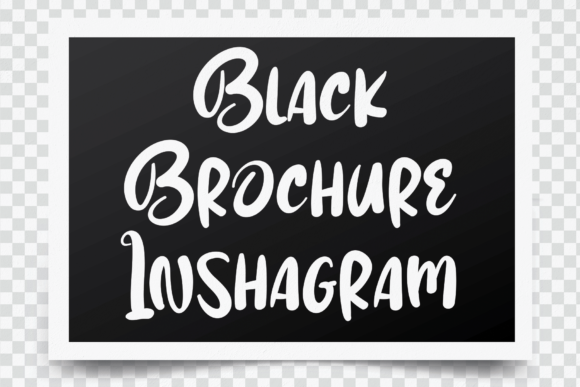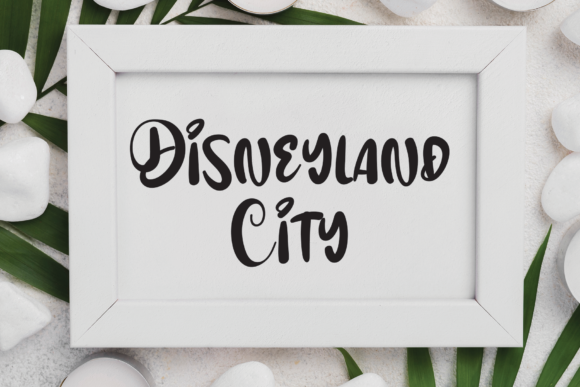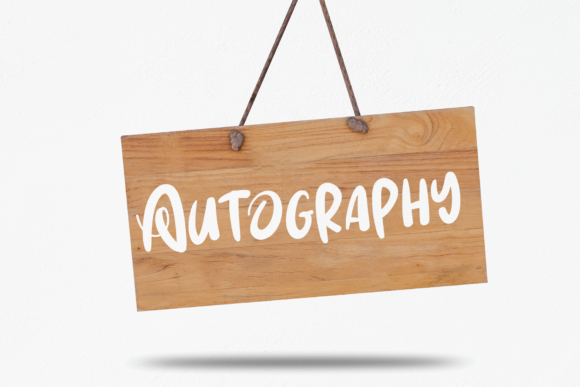
Introducing Hello Font: The Epitome of Elegance and Sophistication
In the realm of typography, few fonts manage to convey the essence of luxury and refinement as effectively as Hello Font. This exquisite script font is designed to add a touch of sophistication to any project, making it a go-to choice for designers and crafters seeking to elevate their creations. With its stylish alternates and ligatures, Hello Font is poised to become your new favorite companion in the world of design.
The Design Philosophy Behind Hello Font
Hello Font is more than just a collection of letters; it’s an experience. Its design is rooted in the principles of classic script typography, yet it boasts a modern flair that sets it apart from more traditional fonts. Each character is meticulously crafted to ensure that the font exudes elegance and poise, making it perfect for projects that demand a high level of sophistication.
Key Features of Hello Font
- Stylish Alternates: Hello Font comes with a range of stylish alternates that allow you to customize your text. Whether you’re looking for a more formal tone or something a bit more whimsical, these alternates provide the flexibility you need to match your project’s unique voice.
- Ligatures: The font includes a set of ligatures that seamlessly connect letters, creating a fluid and natural flow. This feature is particularly useful for creating elegant headings and titles that draw the reader in.
- Elegant and Versatile: Hello Font’s versatility is one of its standout features. It can be used in a variety of contexts, from luxury branding and high-end product packaging to wedding invitations and digital marketing materials.
Why Designers and Crafters Love Hello Font
Designers and crafters are always on the lookout for fonts that can help their projects stand out. Hello Font ticks all the right boxes, offering:
- Instant Recognition: The font’s unique style ensures that your work will be instantly recognizable, setting it apart from more generic designs.
- Emotional Connection: Hello Font has the power to evoke emotions, making it perfect for projects where you want to create a deep connection with your audience.
- Time-Saving: With Hello Font, you don’t have to spend hours designing intricate lettering. The font is ready to use, saving you time and effort.
Using Hello Font in Your Projects
Incorporating Hello Font into your projects is straightforward. Here are a few tips to get you started:
- Pair it Wisely: For maximum impact, pair Hello Font with a clean, sans-serif font for body text. This contrast will highlight the elegance of the font.
- Experiment with Alternates and Ligatures: Don’t be afraid to experiment with the font’s alternates and ligatures. These features can add depth and interest to your designs.
- Consider the Context: Think about the context in which your design will be used. Hello Font’s sophistication makes it suitable for a wide range of applications, but it’s particularly effective in luxury and high-end branding.
Hello Font is a game-changer for designers and crafters seeking to add a touch of elegance and sophistication to their projects. Its stylish alternates, ligatures, and versatile design make it the perfect match for anyone looking to elevate their work. Whether you’re creating luxury branding, wedding invitations, or digital content, Hello Font is sure to make your designs shine.